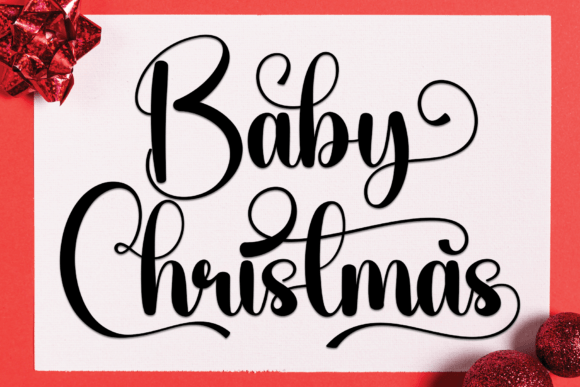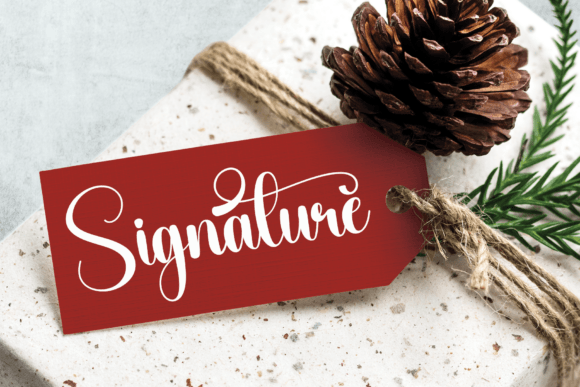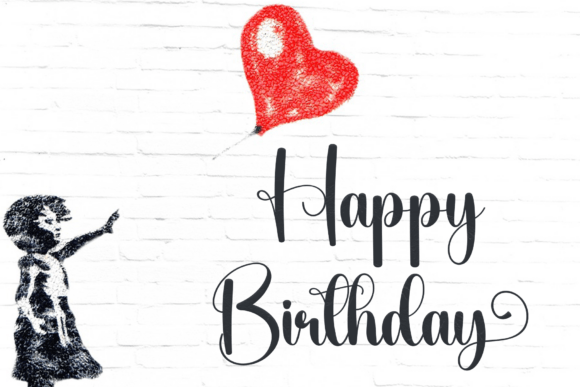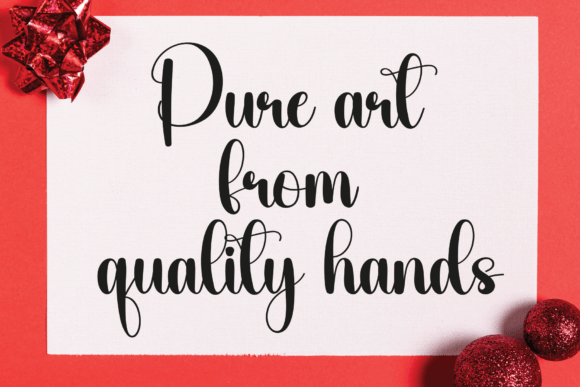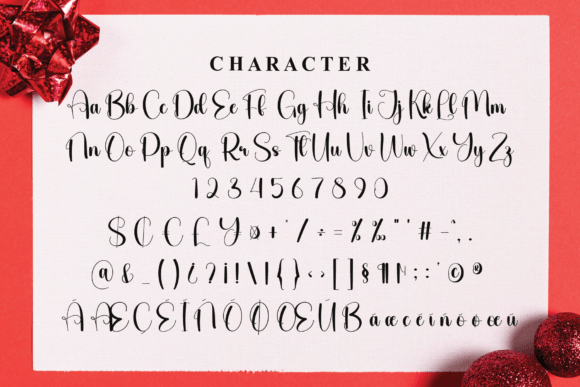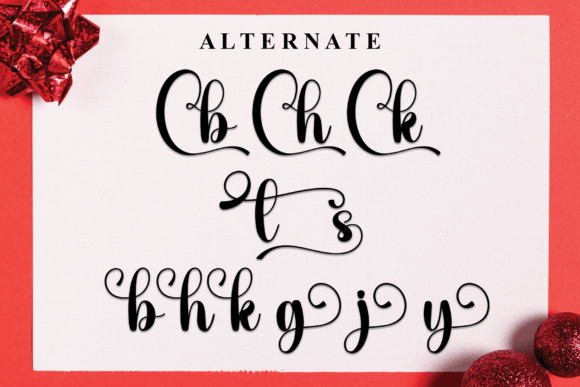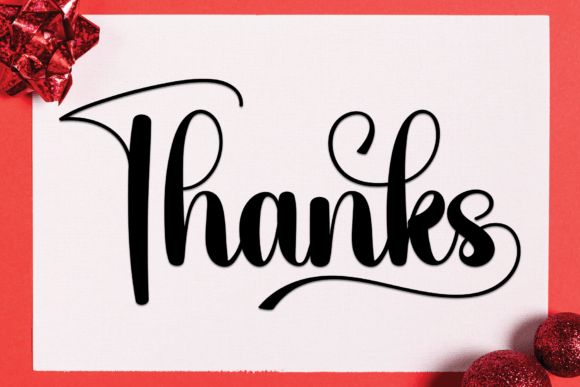
Get Ready to Deck the Halls with a Font that’s the Talk of the Town
As a designer, there’s nothing quite like the rush of finding that perfect font to bring your creative vision to life. You’re brainstorming ideas for a holiday campaign, and suddenly, the spark of inspiration hits – you need a font that captures the carefree, playful spirit of the season. That’s when you stumble upon Baby Christmas Font, a bold, handwritten beauty that screams “fun” and “festive” in equal measure.
This font is a masterclass in whimsy, with its chunky lines and energetic feel making it the perfect partner in crime for designers looking to add a touch of personality to their projects. And with its casual, sporty vibe, Baby Christmas Font is sure to make your text stand out from the crowd, bringing a welcome dose of joy and cheer to any design.
- Unique Characteristics: The Baby Christmas Font features a playful and whimsical design, with intricate details and ornaments that evoke a sense of festive cheer.
Baby Christmas Font Review
Overall, I’d say that Baby Christmas Font has some great elements, but also some areas for improvement. Let’s dive in!
- The font’s playful, cursive style is perfect for adding a touch of whimsy to holiday designs.
- The font’s weight and size options are great for creating visual hierarchy and emphasis in your designs.
- The font’s versatility makes it suitable for a wide range of design projects, from social media graphics to print materials.
- The font’s legibility can be a bit of an issue, especially in smaller sizes or when used in complex compositions.
- The font’s consistency can be inconsistent, with some letters or glyphs looking a bit wonky.
While Baby Christmas Font has some great qualities, its limitations hold it back from being a top-tier font choice. However, with some careful design decisions and attention to detail, it can still be a great addition to your holiday design toolkit.
Use the Baby Christmas Font to add a festive touch to your holiday designs.
Pair the font with bold colors and festive graphics to create a cohesive look.
Experiment with different font sizes and styles to add visual interest to your design.
Use the Baby Christmas Font for:
Christmas card designs
Holiday social media posts
Gift tags and labels
Party invitations and decorations